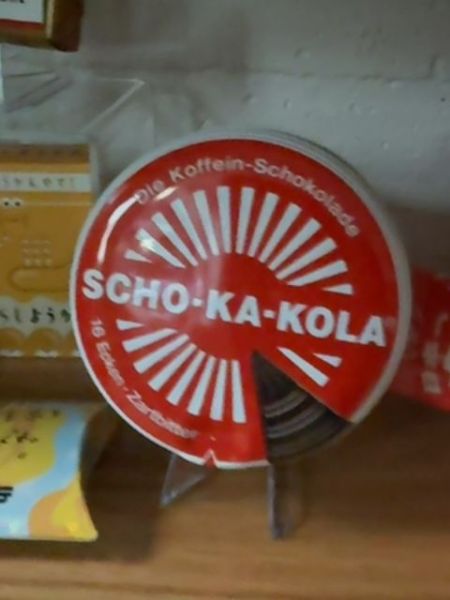
Scho-Ka-Kola
Scho-Ka-Kola is a German chocolate brand known for its caffeinated chocolate, often marketed as a source of energy.
1935
Germany
The typography is bold and sans-serif, which emphasizes clarity and readability. The white text contrasts sharply against the red background, enhancing visibility and creating a dynamic visual impact. The choice of sans-serif font suggests a modern and energetic brand identity.
The packaging is a distinctive round tin with a vibrant red color and a striking design. It features a radial pattern emanating from the center, reminiscent of sun rays, which draws attention to the brand name.
- Scho-Ka-Kola was first introduced in 1935.
- It gained popularity as an energy supplement during World War II.
- The chocolate contains both caffeine and kola nut extract.